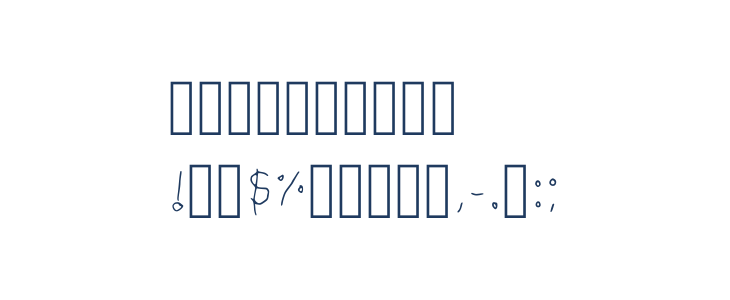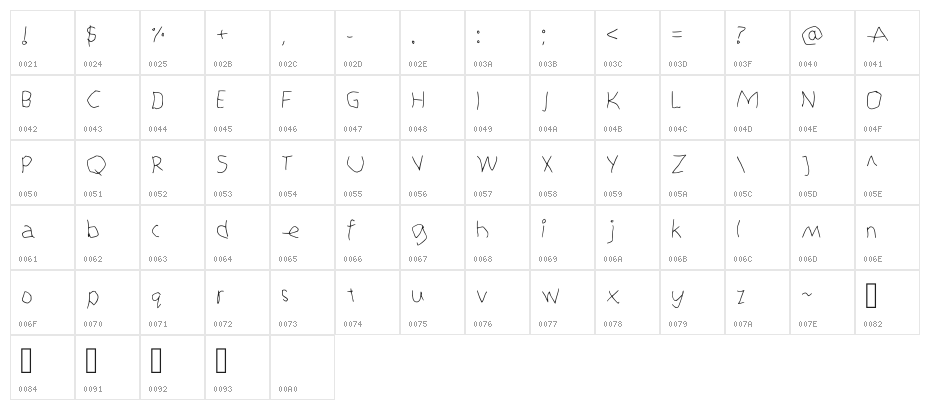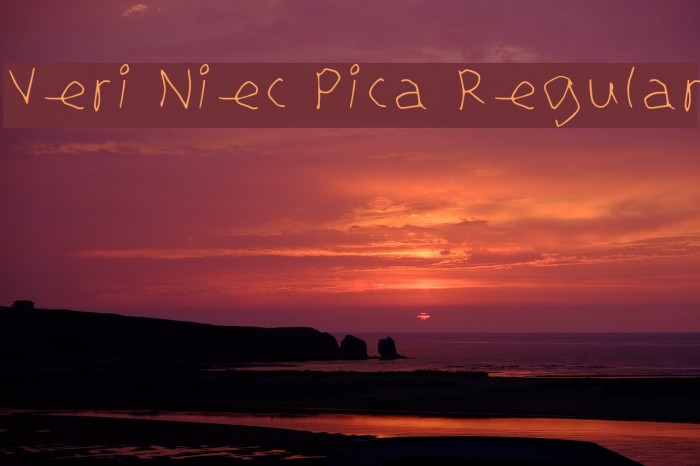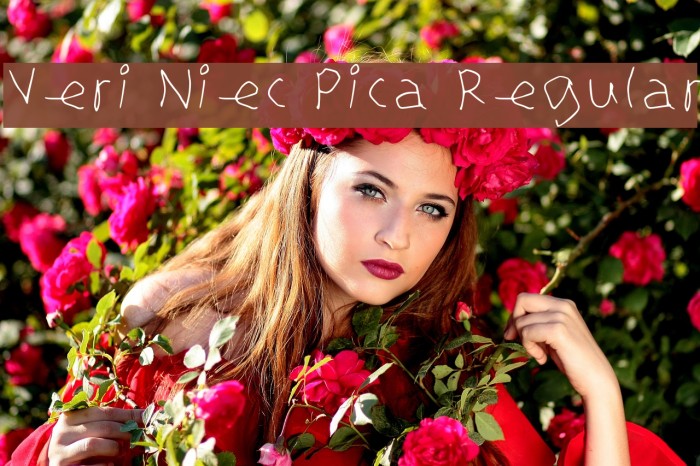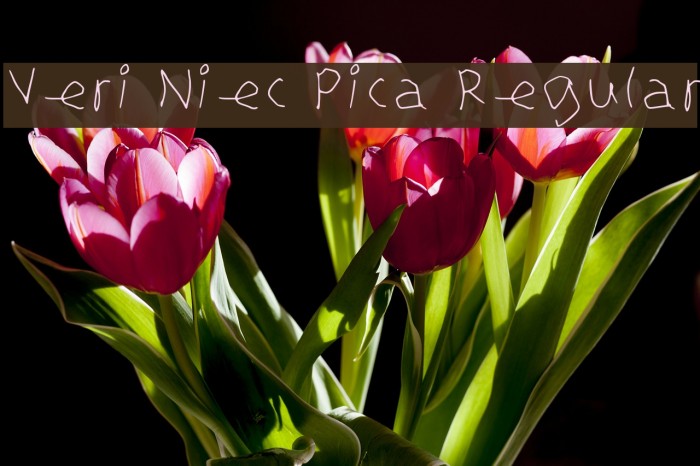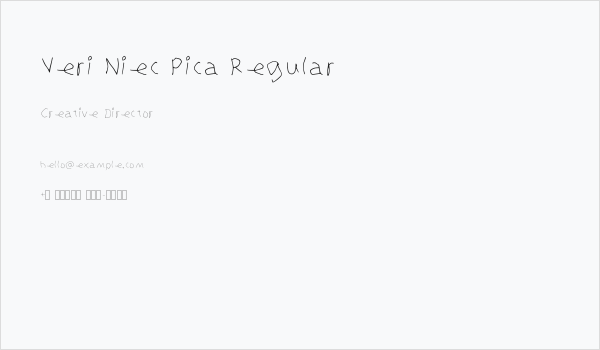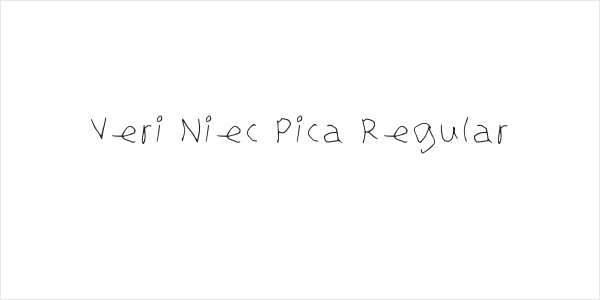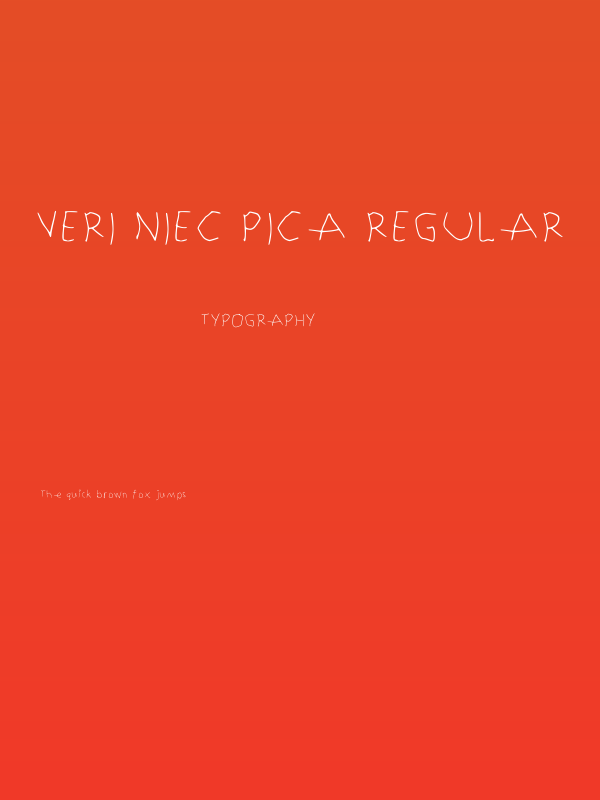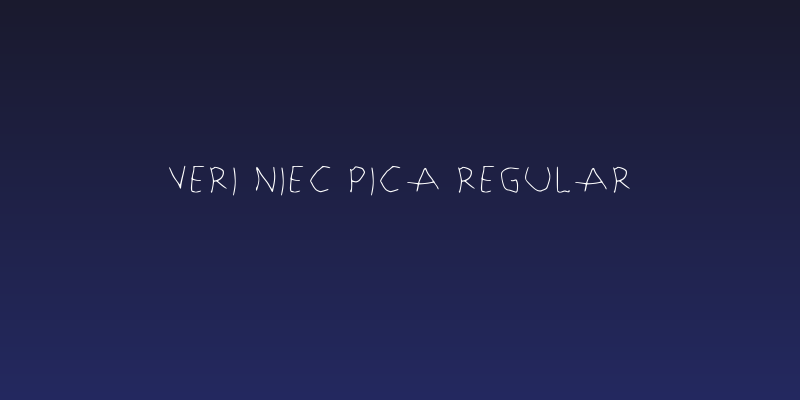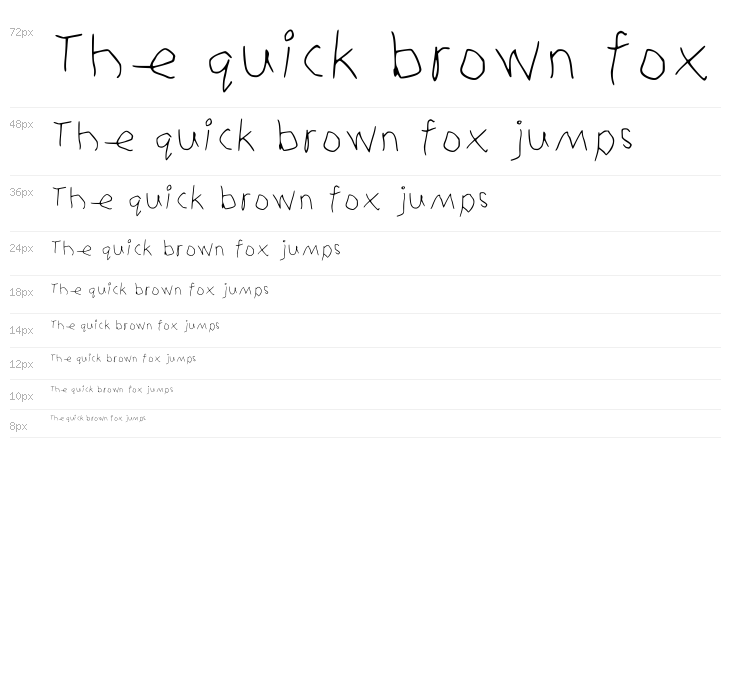
Veri Niec Pica Regular Font
Veri Niec Pica Regular Description
This font features a playful and informal handwritten style, characterized by its irregular and slightly uneven strokes. The letters have a whimsical and casual appearance, with a mix of sharp angles and rounded edges that give it a unique personality. The uppercase and lowercase letters maintain a consistent style, with a slight slant that adds to the font's dynamic feel. The numerals and special characters follow the same design principles, ensuring a cohesive look across all elements. This font's distinctive charm makes it suitable for projects that require a personal touch or a creative flair.
| Use Case | Headlines, Creative projects, Informal communications |
| Proposed Projects | Ideal for greeting cards, children's books, casual invitations, and creative branding projects. |